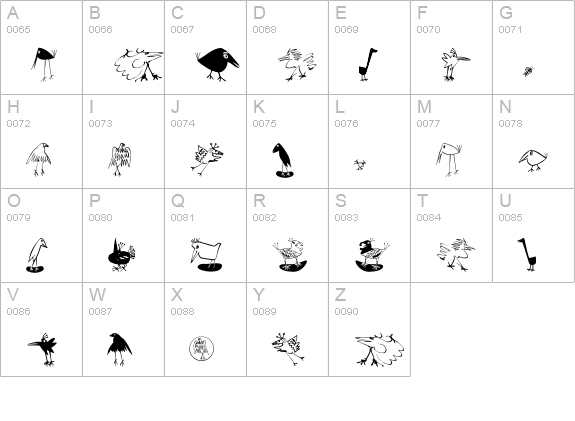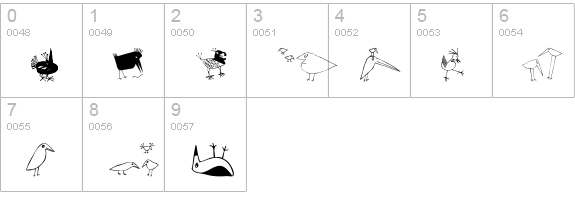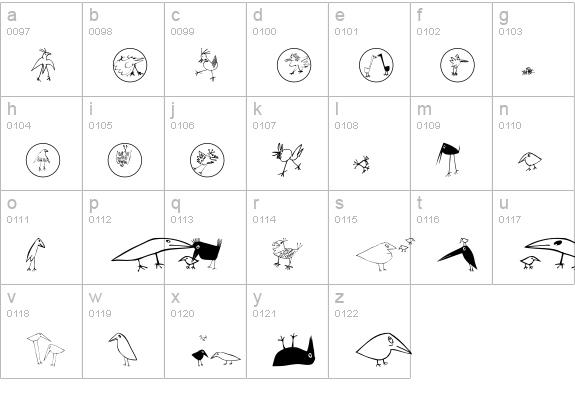
BirdsEF Font Details
Introducing BirdsEF font, a delightful and whimsical typeface that captures the essence of nature and freedom. This unique font is perfect for adding a touch of charm and playfulness to your designs. With its flowing lines and intricate details, BirdsEF font exudes a sense of lightness and grace, just like a bird in flight. Best of all, BirdsEF font is available for free download at FontsMarket.com. So spread your wings and let your creativity soar with this enchanting font that is sure to bring a sense of joy and wonder to your projects. Add a touch of whimsy to your designs with BirdsEF font today!